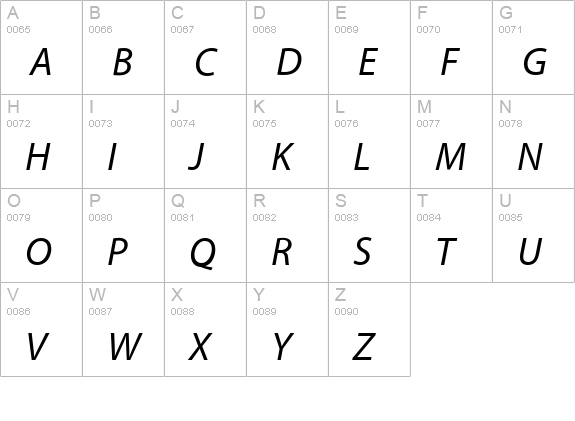
Myriad MM Italic Font Details
Myriad MM Italic is a distinctive, italic variant in the Myriad typeface family \xE2\x80\x94 well suited to design and typography projects.
Myriad MM Italic font is a timeless and elegant typeface that exudes sophistication and modernity. Its sleek and slanted design gives a dynamic and stylish touch to any text or design project. The italic style adds a sense of flair and distinction, making it perfect for creating eye-catching headings, quotes, or logos. The Myriad MM Italic font is versatile and can be used for a wide range of purposes, from branding and marketing materials to editorial design and web content. Its clean lines and smooth curves make it highly readable and appealing to the eye. Best of all, Myriad MM Italic font is available for free download at FontsMarket.com. Whether you're a professional designer looking to add a new font to your collection or a student working on a project, you can easily access this stylish typeface without any cost. Don't miss out on the opportunity to enhance your designs with the elegant and sophisticated Myriad MM Italic font today.